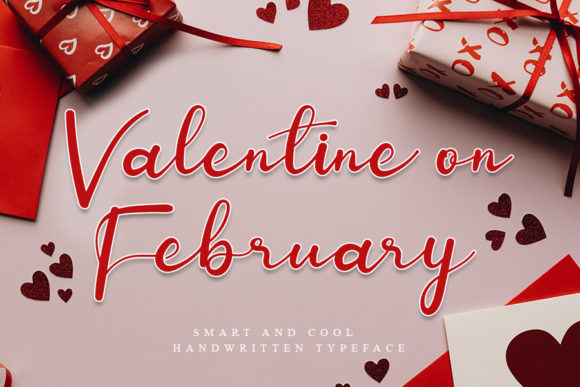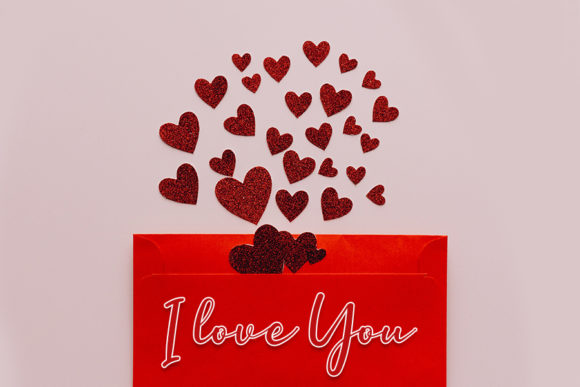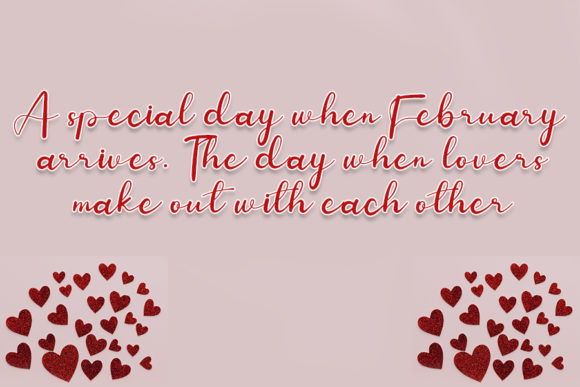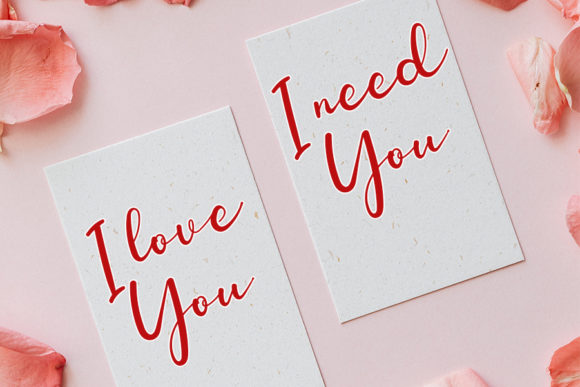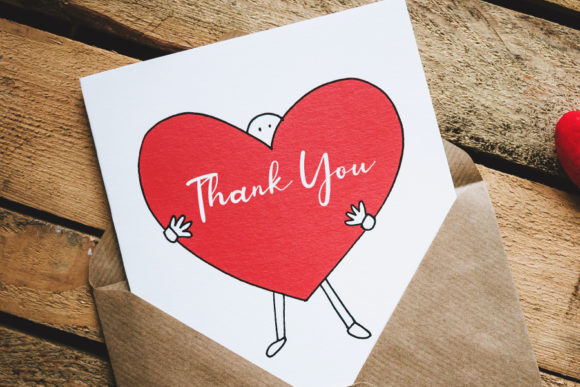
Valentine on February Font
About Valentine on February Font
Valentine on February is an incredibly beautiful paint brushed script font. It has a classy, elegant and modern look that can be used for logos, branding, invitations, stationery, wedding designs, social media posts, and much more!